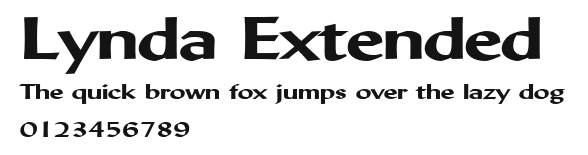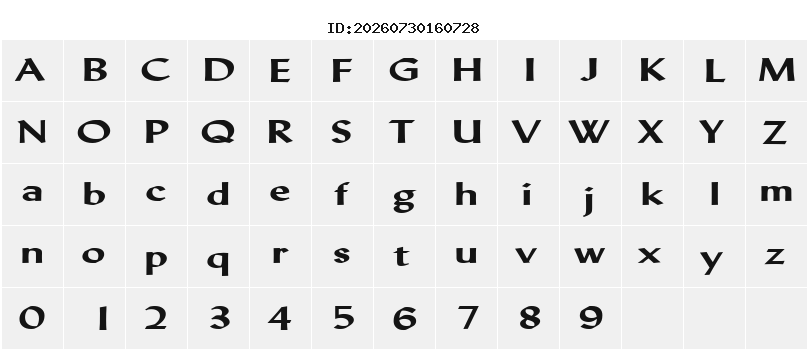
• Font Name: Lynda Extended
• Full Font Name: Lynda Extended Bold
About Lynda Extended.ttf
Lynda Extended.ttf is a modern, elegant sans-serif font designed for ultimate readability and visual harmony. Perfect for branding, headlines, web design, and print materials.